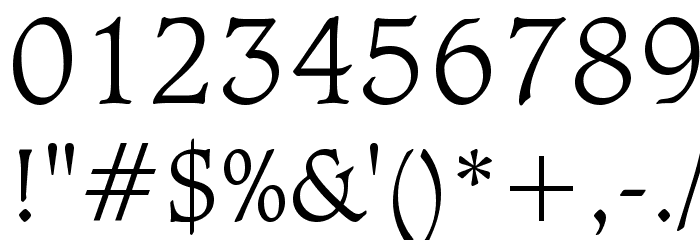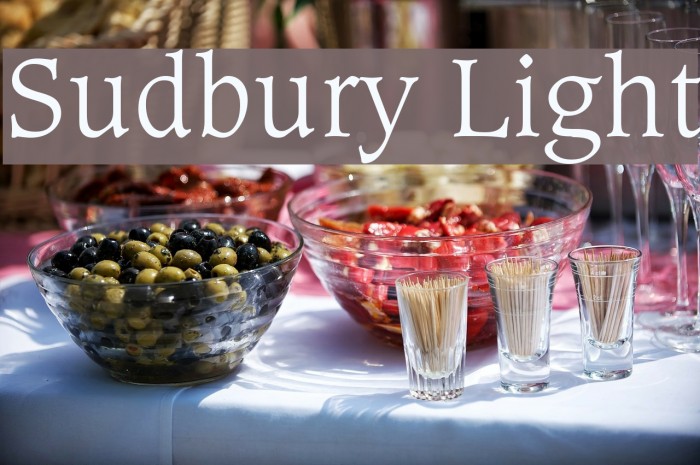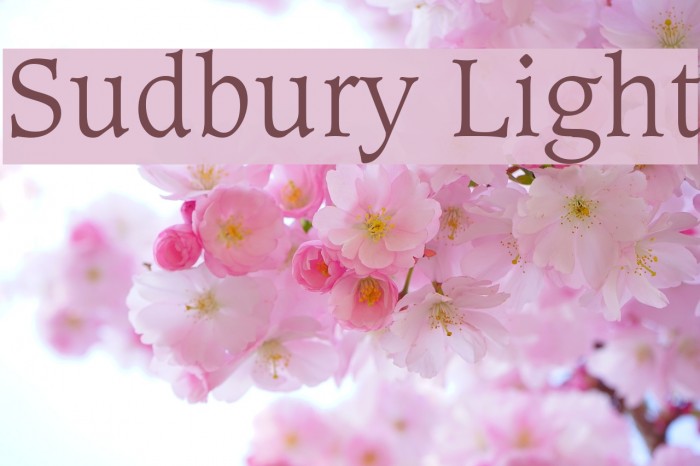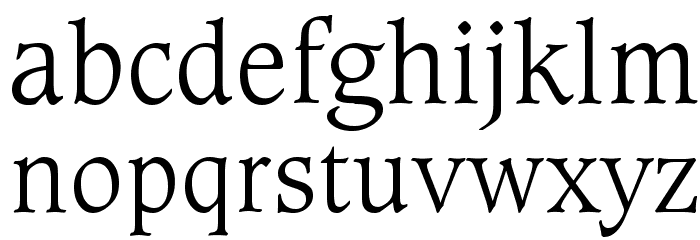
Sudbury Light Font
Sudbury Light Description
This font features a classic serif style with elegant, thin strokes and subtle curves, giving it a refined and sophisticated appearance. The uppercase letters are tall and stately, while the lowercase letters maintain a consistent height, ensuring readability. The numerals are clear and distinct, with a traditional design that complements the overall aesthetic. Special characters are well-integrated, maintaining the font's cohesive look. The font's light weight and high contrast between thick and thin strokes enhance its legibility and elegance.
A classic serif font with elegant, thin strokes and high contrast from Uncategorized fonts.
- Proposed Projects: Ideal for use in formal invitations, editorial design, book covers, and branding materials that require a touch of sophistication.
- Overall Style: Classic